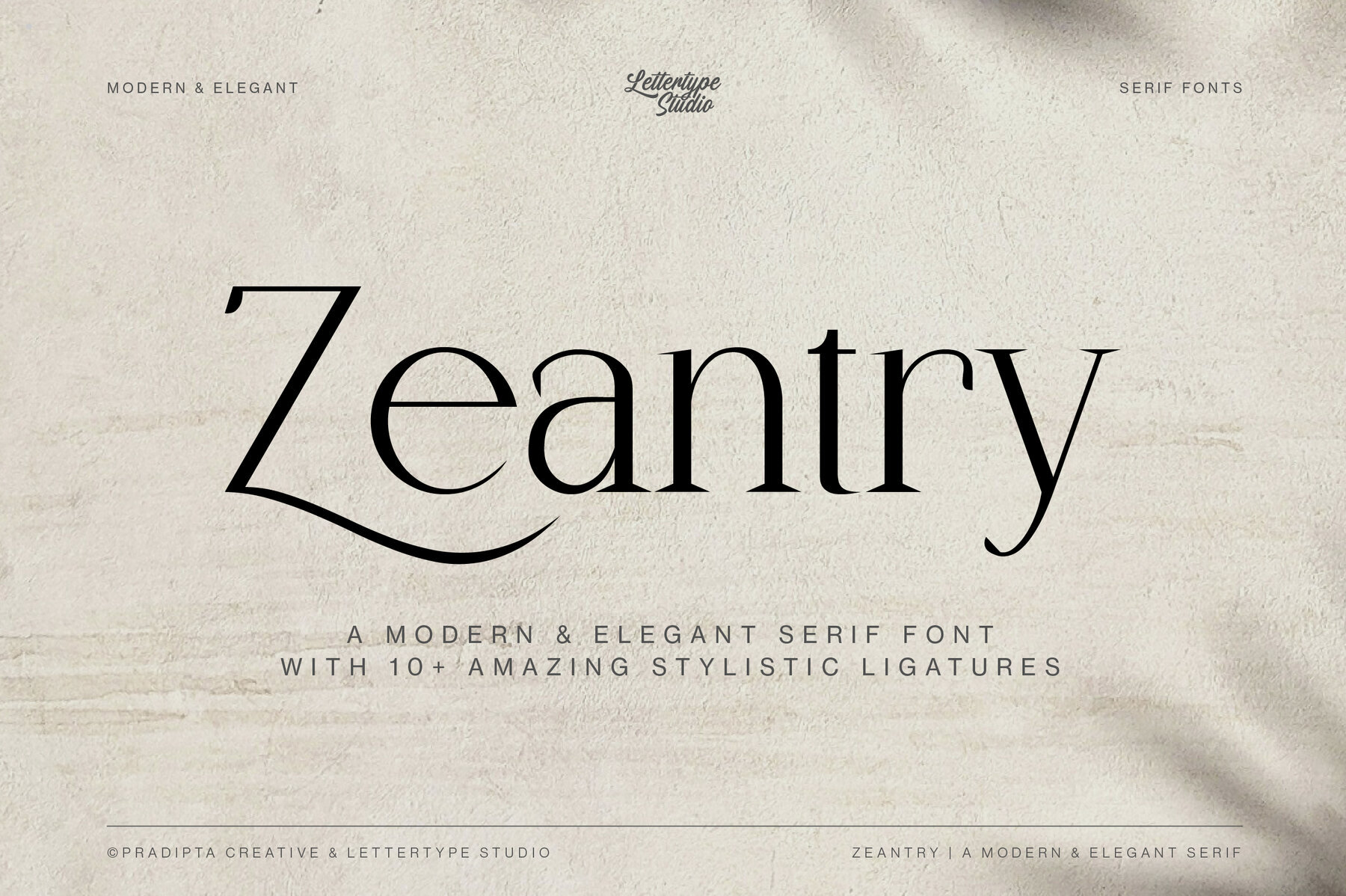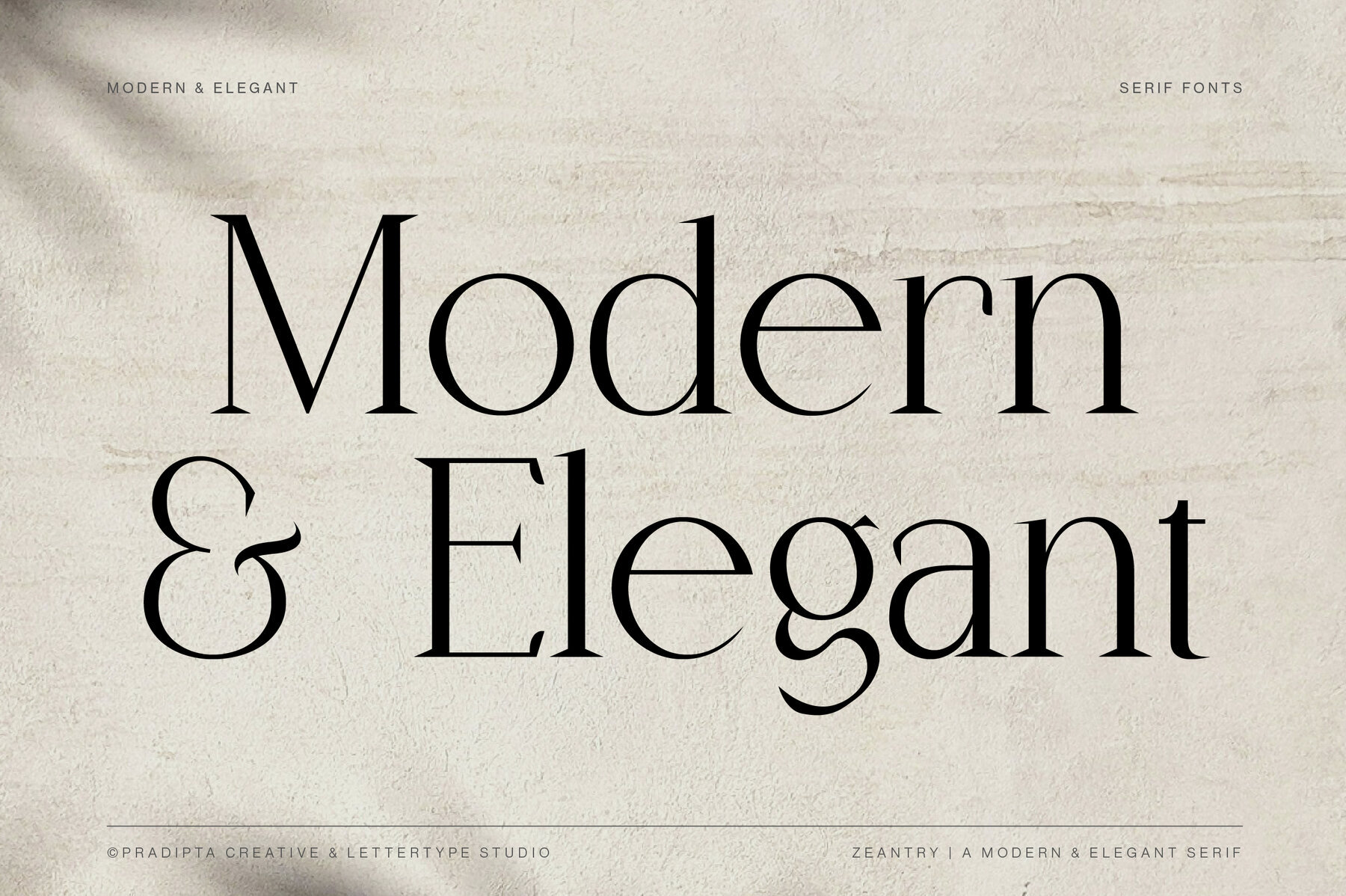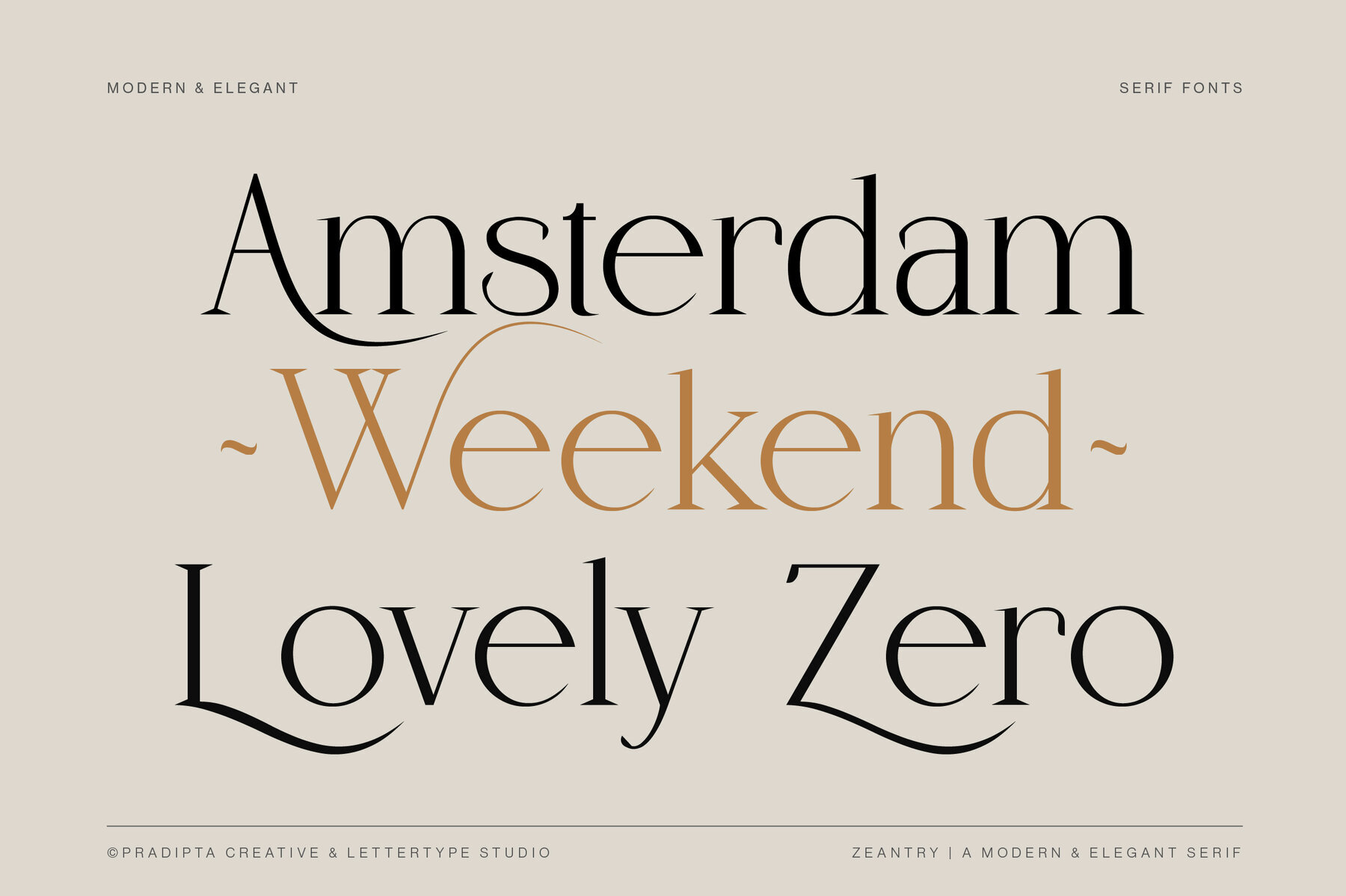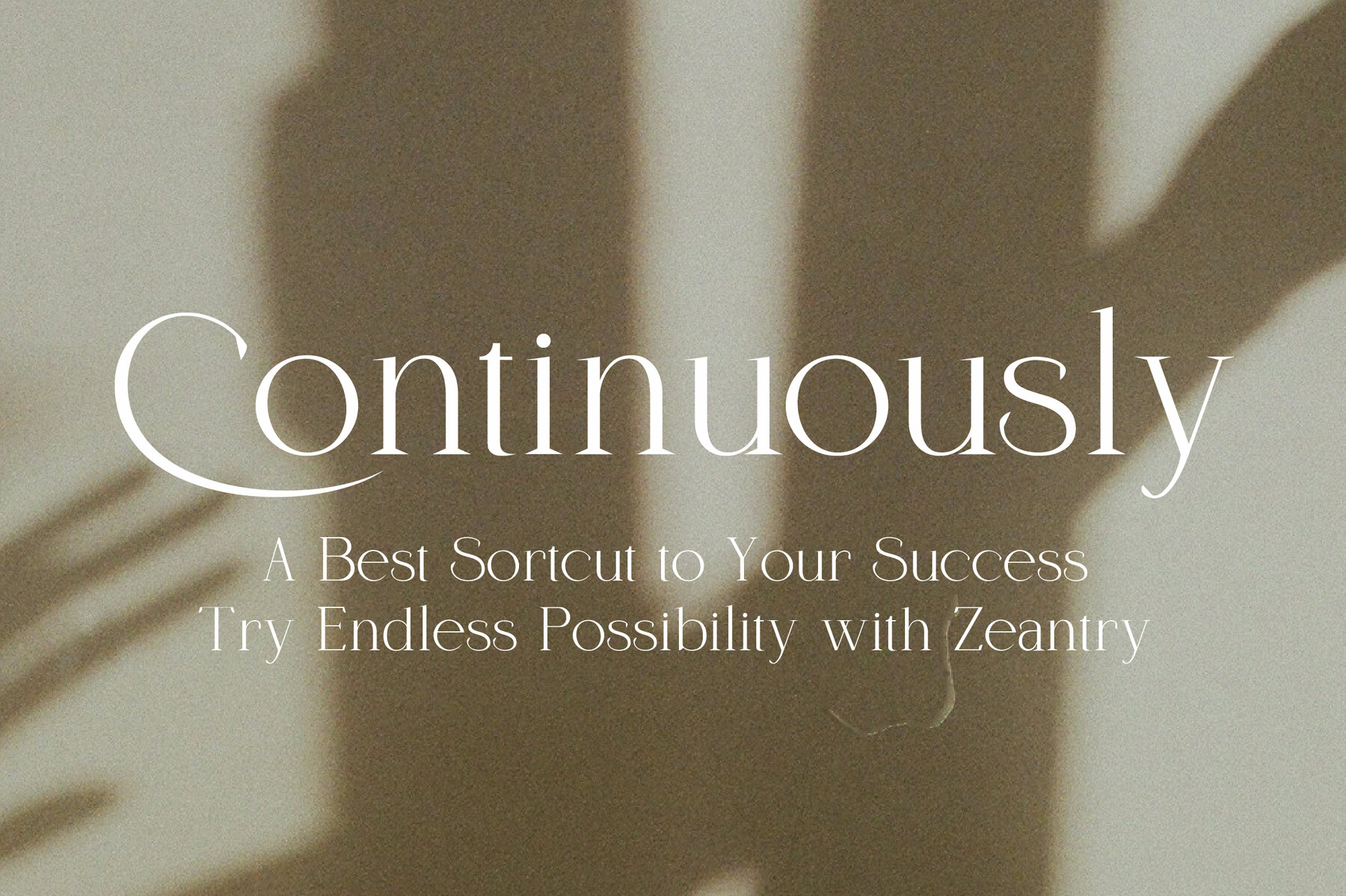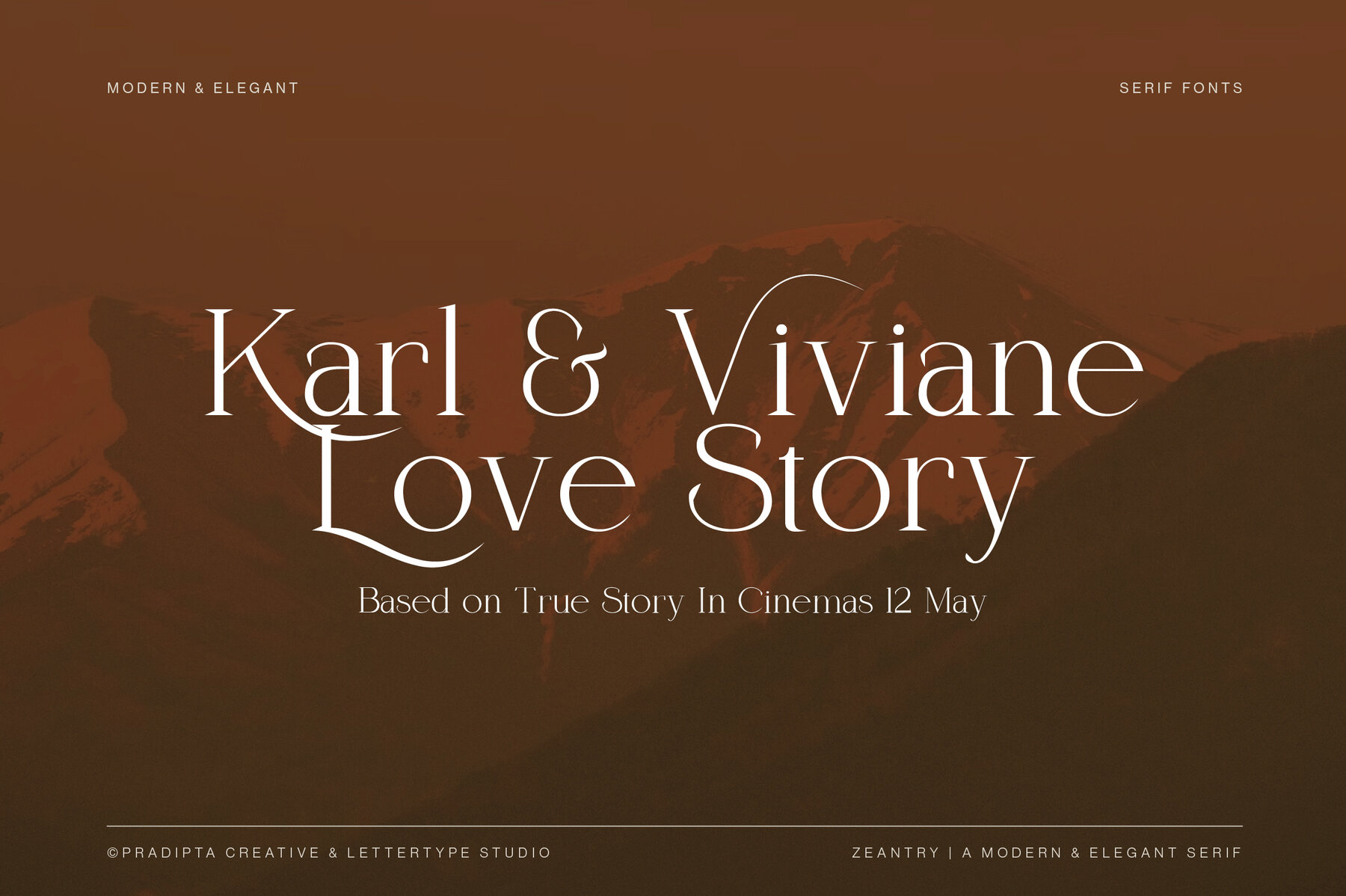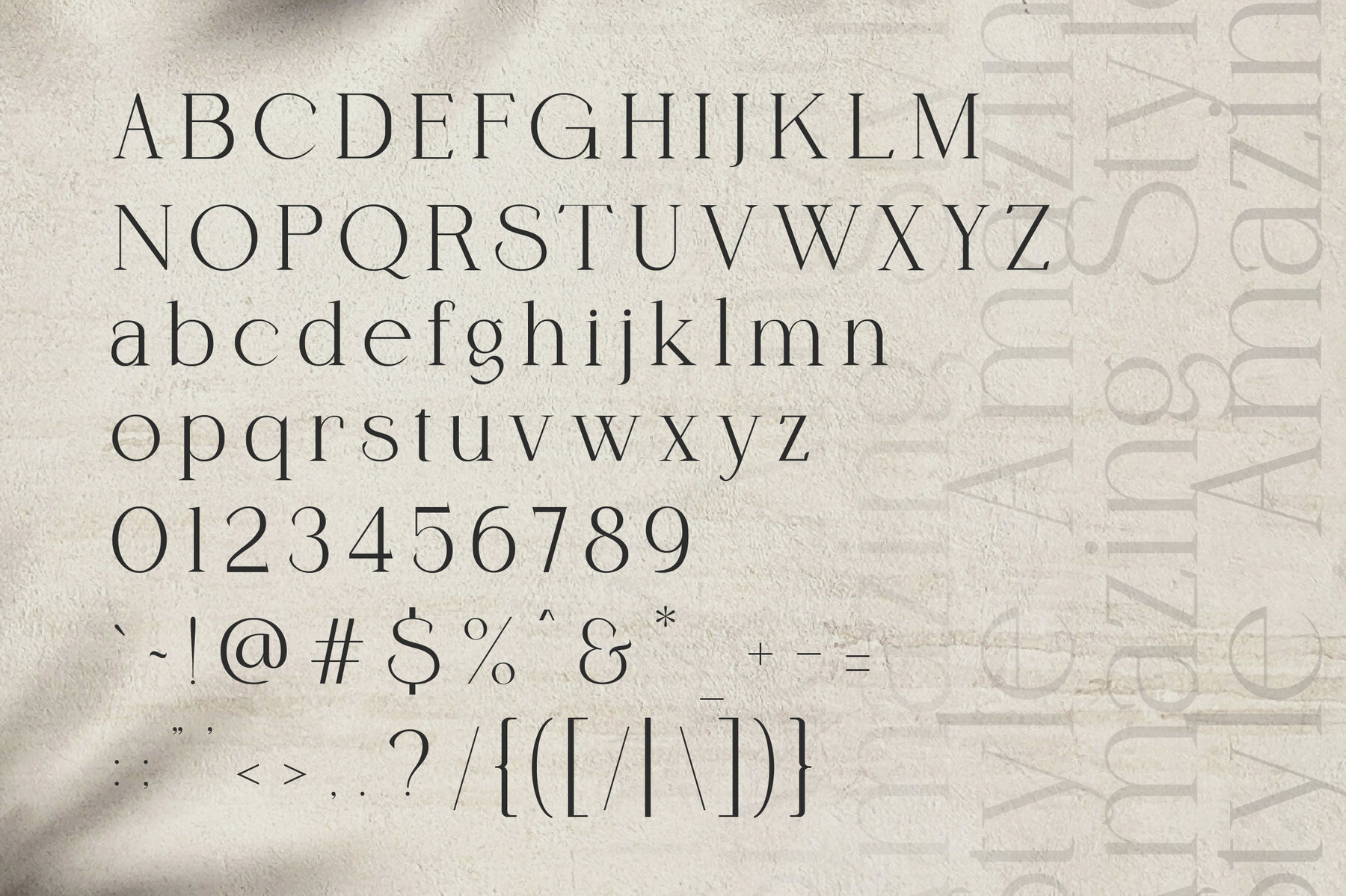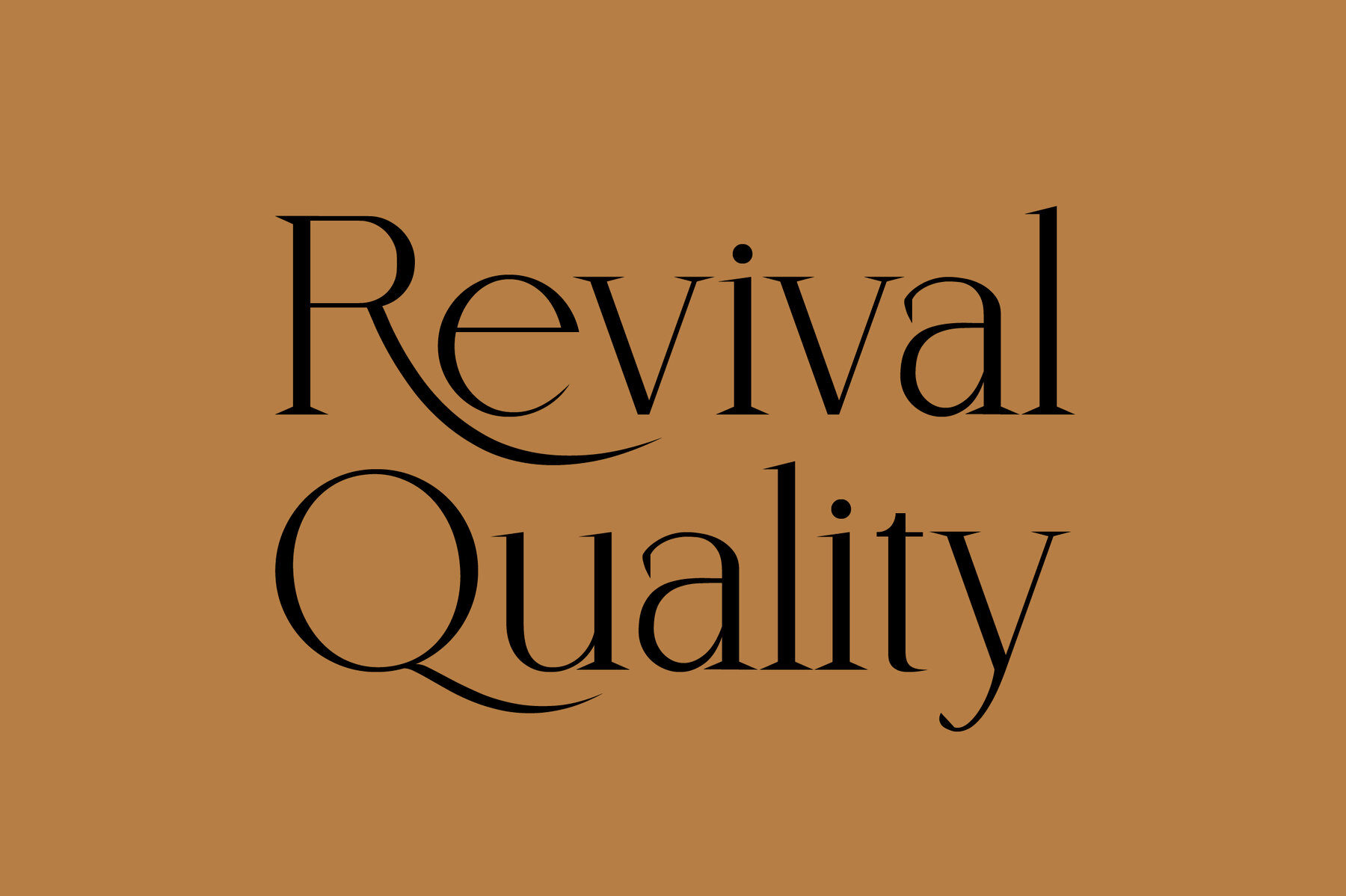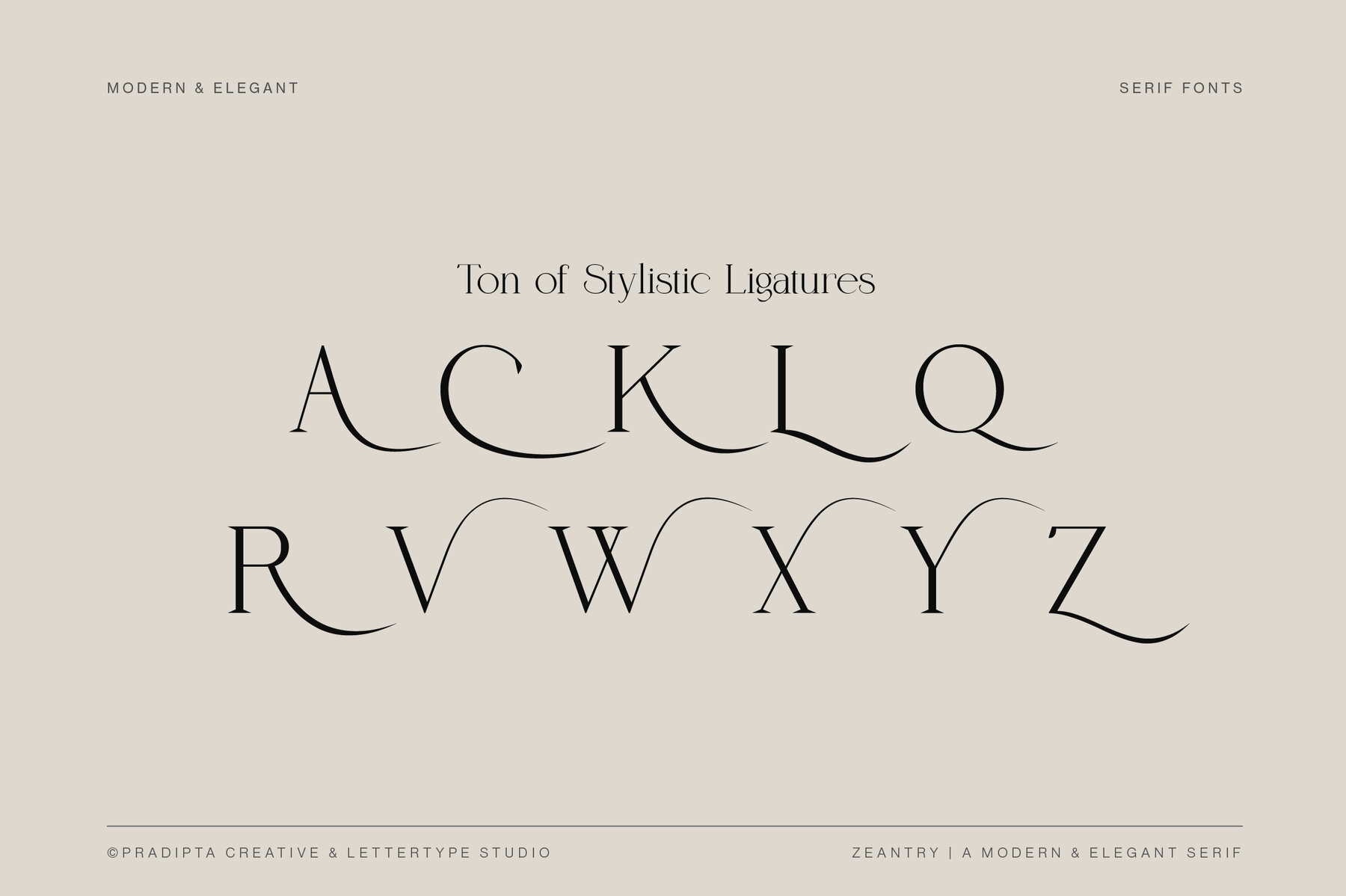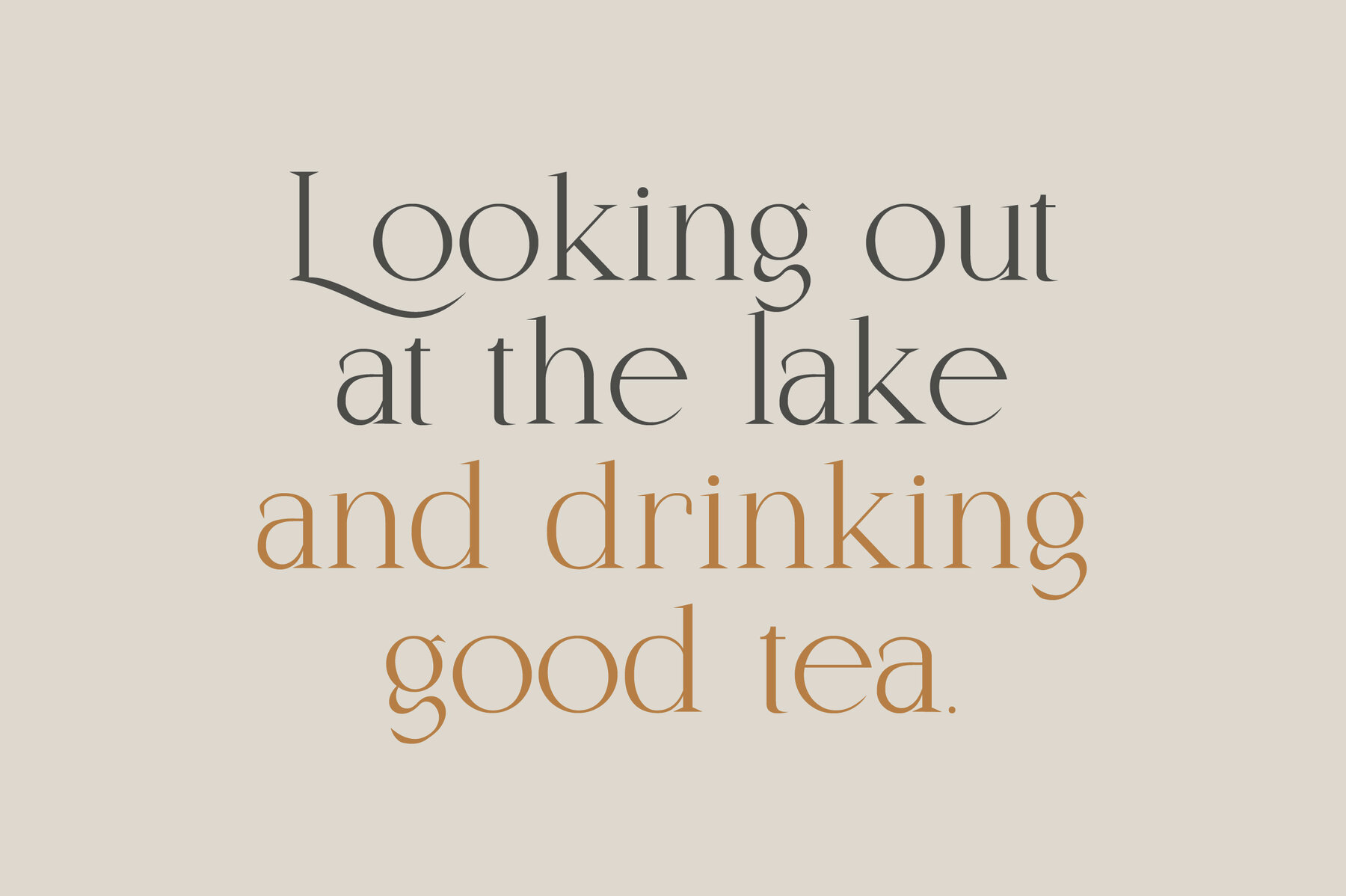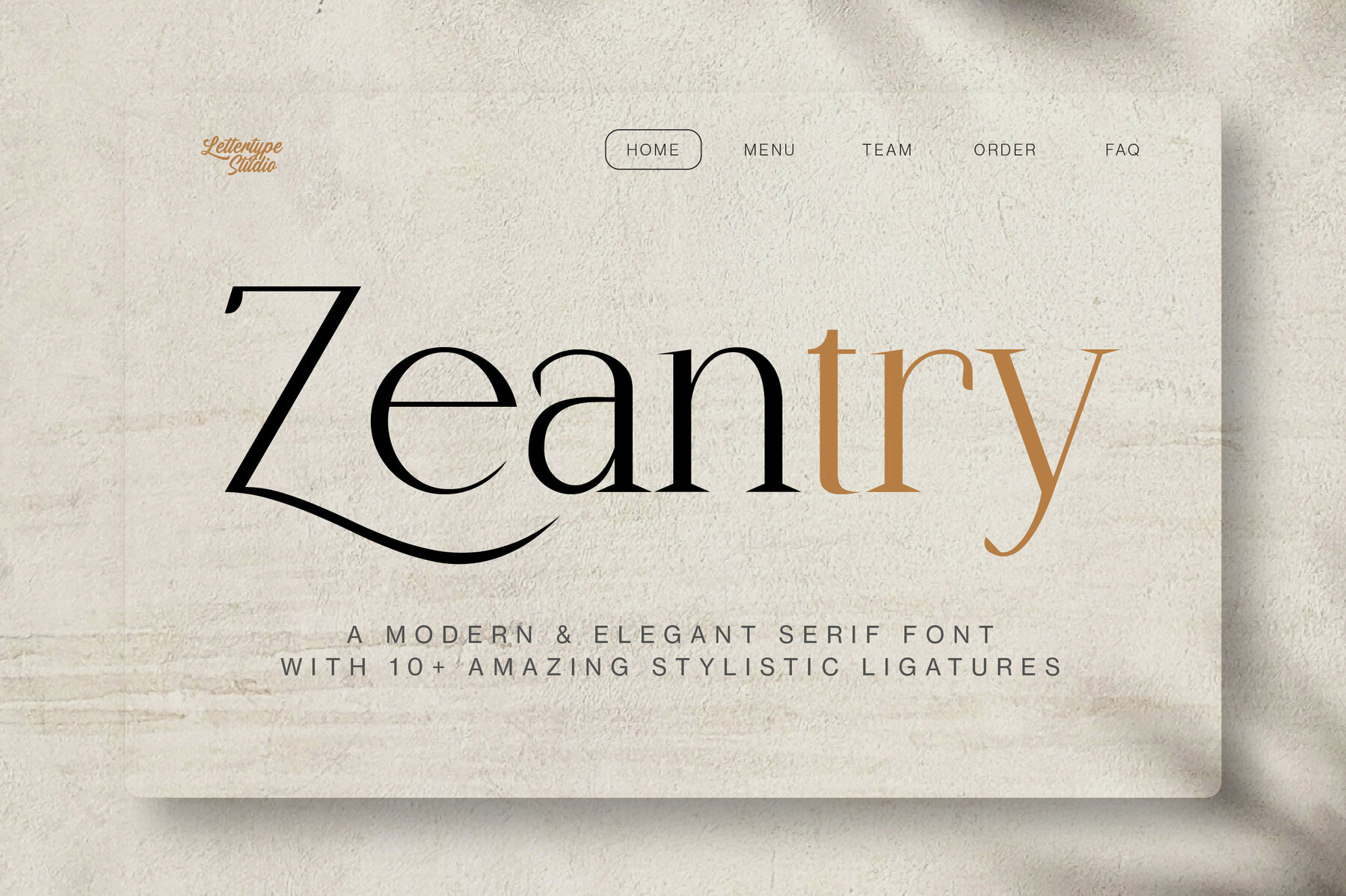
Zeantry Font
Zeantry Regular
Zeantry is a sophisticated serif font family inspired by the graceful aesthetics of 18th-century typography. Its refined letterforms, balanced contrast, and subtle geometric elements project a sense of modern elegance. With 18 carefully crafted styles and more than ten stylistic ligatures, Zeantry offers a versatile solution for projects that call for clarity and poise. This font family stands out in luxury branding, editorial layouts, and fashion-focused designs. The clean structure and polished details allow for seamless integration into a variety of creative directions, from high-end packaging to elegant website identities. Zeantry’s versatility supports both print and digital applications, delivering a timeless touch to your work.Zeantry Modern Elegant Serif Font Family